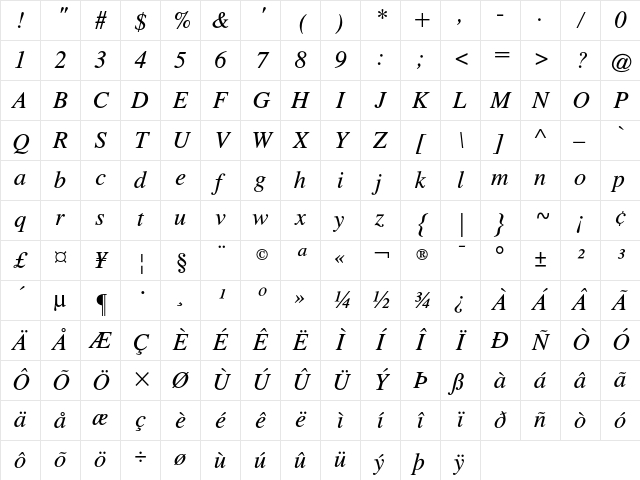
Times CG Italic
Foundry: Miles Inc
Design Context for Times CG
Times CG is a composed and adaptable typeface that performs quietly and consistently across a wide range of design contexts. The slanted form adds forward momentum and visual energy.
Pro Tip: Use Times CG for emphasis, pull quotes, and subheadings where its slanted energy can add rhythm to the layout.